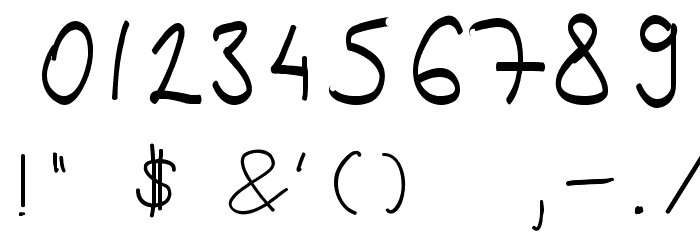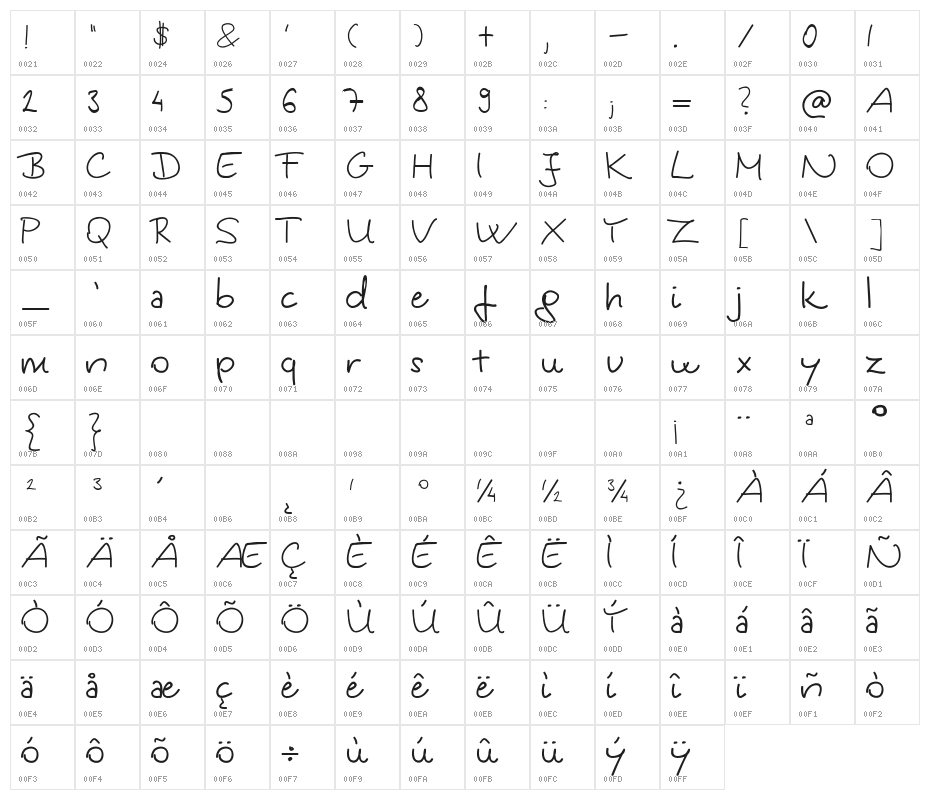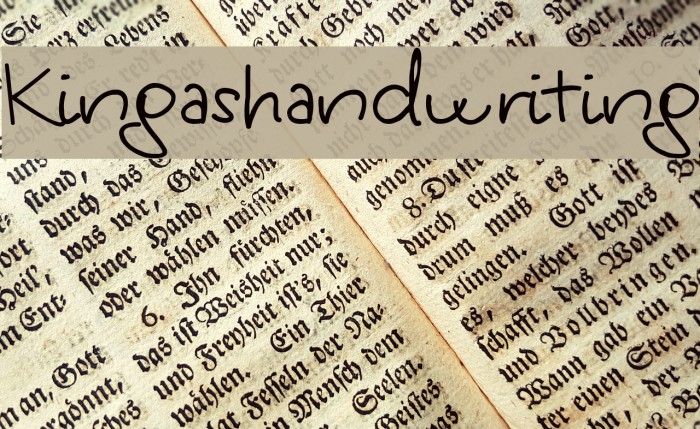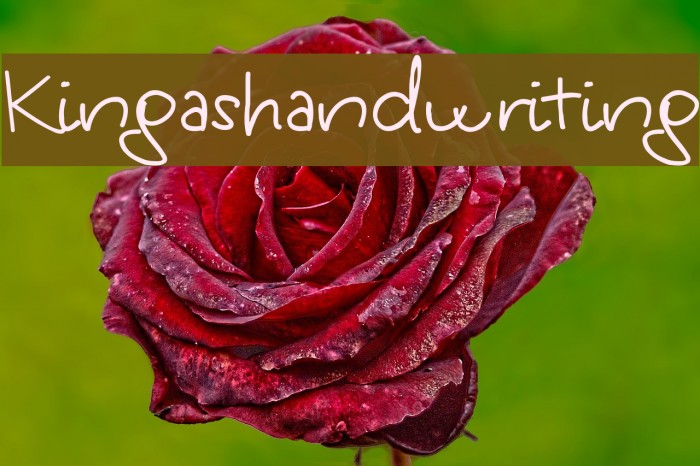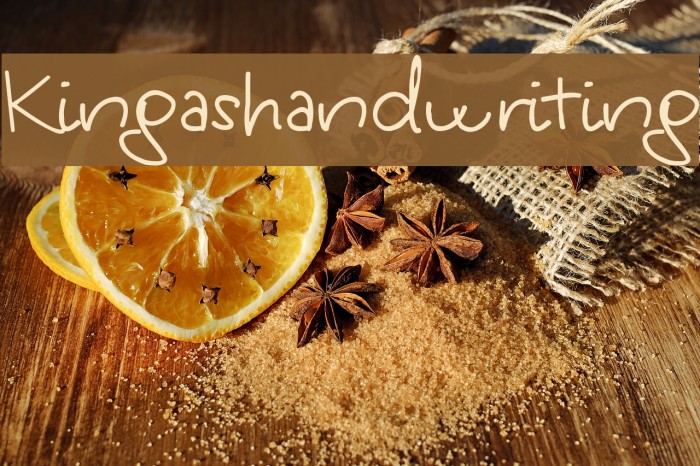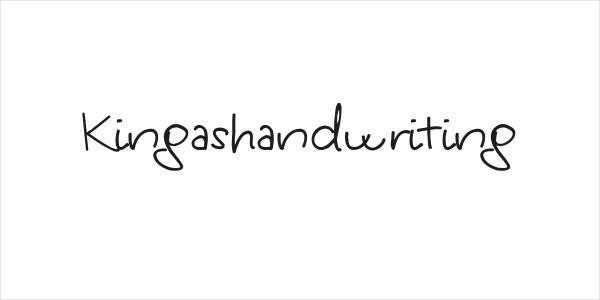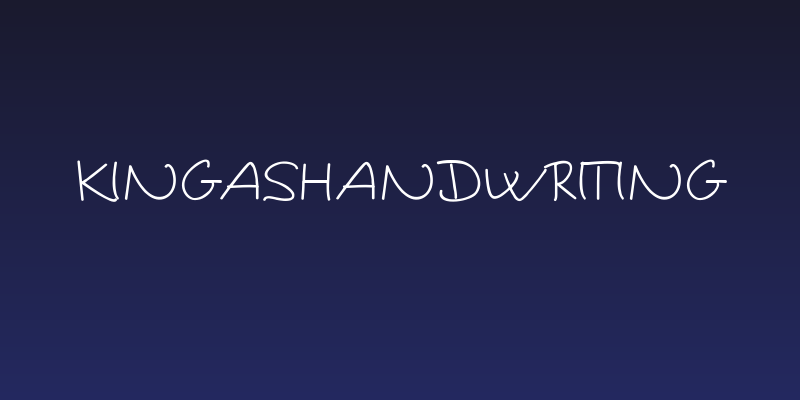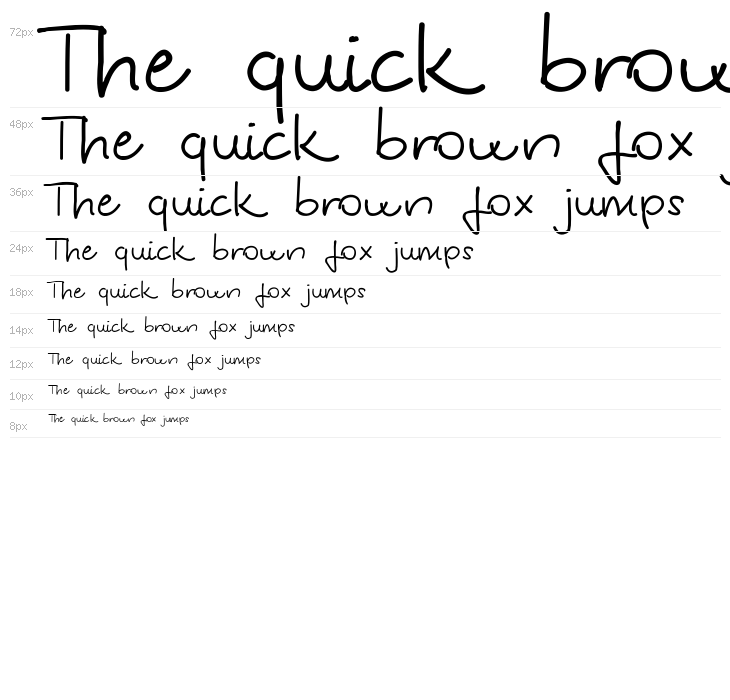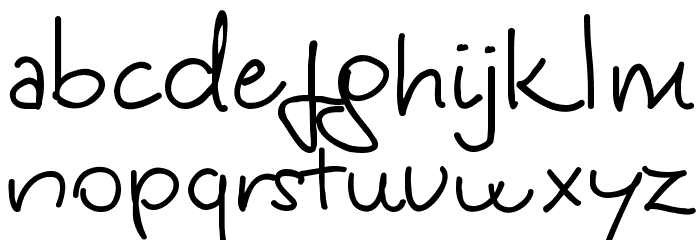
Kingashandwriting Font
Kingashandwriting Description
This font exudes a casual and playful handwritten style, characterized by its fluid and slightly irregular strokes that mimic natural handwriting. The uppercase letters are bold and slightly tilted, giving a dynamic feel, while the lowercase letters maintain a consistent flow with rounded edges. The numerals are clear and legible, matching the overall informal aesthetic. Special characters are integrated seamlessly, adding to the font's versatility. This font is perfect for projects that require a personal touch, such as greeting cards, invitations, or casual branding.
Overall StyleCasual
Use CaseHeadlines, Informal text, Personal projects
Proposed ProjectsIdeal for greeting cards, invitations, personal branding, and informal communications.